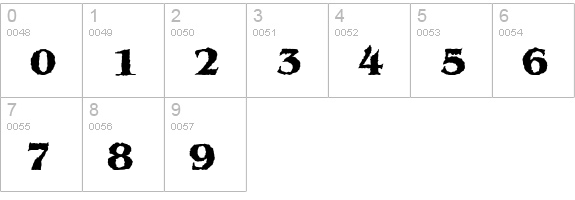
Grunge Begnat Bold is a strong, high-contrast variant in the Grunge typeface family \xE2\x80\x94 well suited to headlines, attention-grabbing titles, and strong calls-to-action.
Introducing Grunge Begnat Bold font, a gritty and rebellious typeface that embodies the raw energy and edgy aesthetic of the grunge movement. With its distressed appearance and bold letterforms, Grunge Begnat Bold exudes a sense of defiance and nonconformity, making it the perfect choice for projects that call for a rugged and unconventional look. This versatile font is ideal for creating eye-catching headlines, posters, album covers, and other design projects that demand a touch of urban grit. Whether you're looking to add a touch of attitude to your designs or make a bold statement, Grunge Begnat Bold has got you covered. Best of all, Grunge Begnat Bold is available for free download at FontsMarket.com, allowing you to unleash your creativity without breaking the bank. So why wait? Give your designs an edge with Grunge Begnat Bold today!